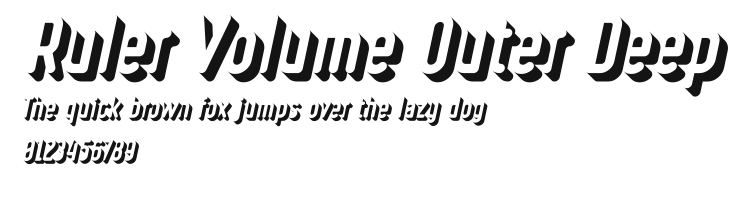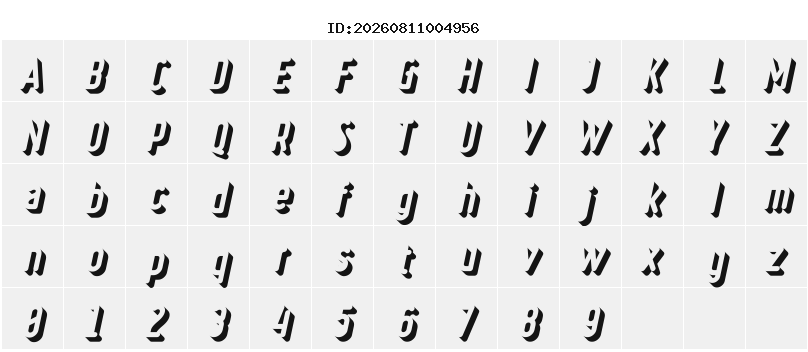
• Font Name: Ruler Volume Outer Deep
• Full Font Name: Ruler Volume Outer Deep
• Version: Version 2.32 November 24, 2016
• Designer: Levi Szekeres
• Manufacturer: Levi Szekeres
• Description: Ruler Font
About Ruler Volume Outer Deep.ttf
Ruler Volume Outer Deep.ttf is a modern, elegant sans-serif font designed for ultimate readability and visual harmony. Perfect for branding, headlines, web design, and print materials.